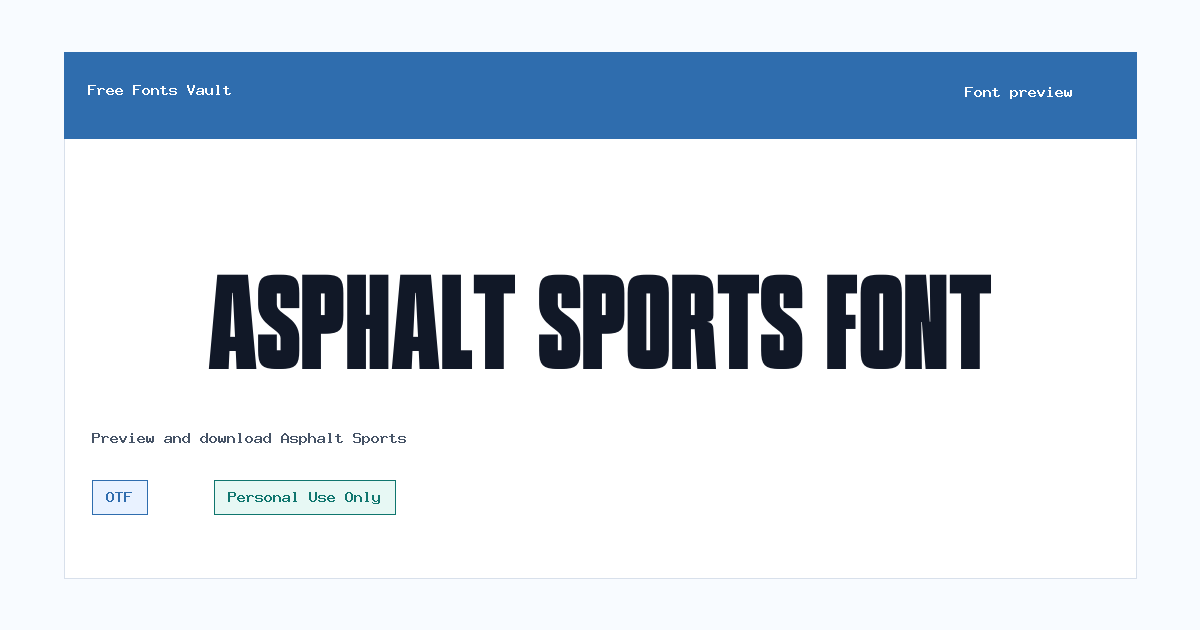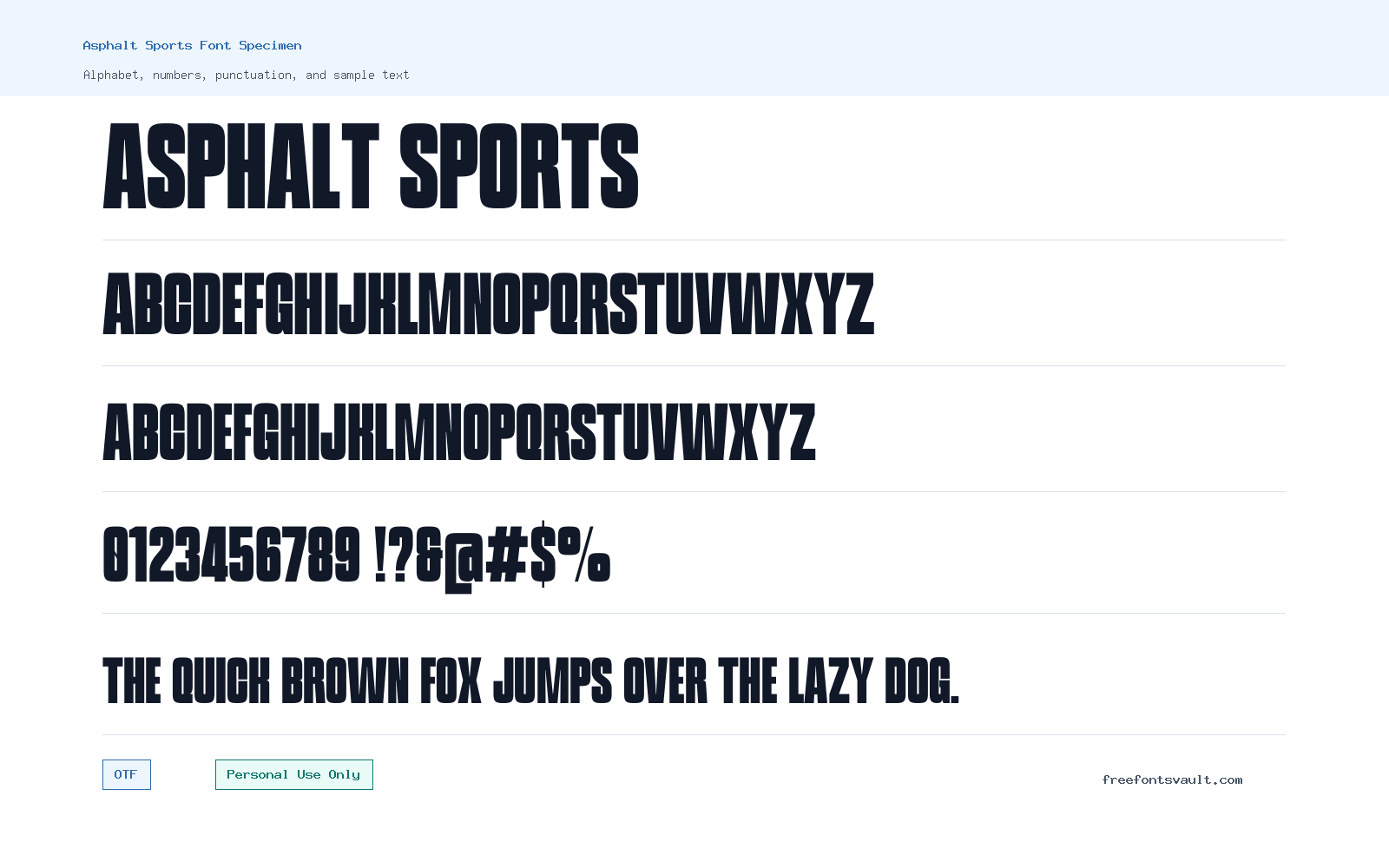
Asphalt Sports
Asphalt Sports Font
Asphalt Sports is a bold display font with a strong athletic feel, made for short text that needs weight and impact. It is best tested in headlines, team-style names, poster titles, and logo mockups rather than long paragraphs.
About Asphalt Sports Font
Asphalt Sports has the kind of sturdy, compact look visitors often want for sports graphics and energetic branding tests. The regular OTF file gives you a single straightforward style to preview, so the best way to judge it is by typing the exact words you plan to use. Try team names, jersey numbers, event titles, gym labels, gaming names, or short merchandise text. Because the family listed here has one regular style, you should not expect separate italic, outline, or extra weight files unless you add your own effects in design software.
Use the preview box to check spacing, letter shapes, and readability before downloading. Display fonts can look excellent at large sizes but become tight or heavy when used too small. Test all-caps words, mixed-case names, numbers, and any punctuation you need. If your design uses several words, add more space between lines and avoid crowding the letters with heavy shadows or outlines. For pairing, keep the supporting font simple: a clean sans serif works well for body copy, dates, addresses, or small labels while Asphalt Sports handles the main title.
• Bold sports-style display look for short, high-impact wording.
• Sports posters, team name previews, fitness graphics, event titles, and jersey-style mockups.
• Logo concepts, gaming banners, social graphics, stickers, and merchandise drafts for personal projects.
What kinds of designs suit Asphalt Sports?
It suits short, bold text such as sports titles, team-style names, poster headings, gym graphics, gaming banners, and logo drafts.
Can I use Asphalt Sports for body text?
It is better for display use. For paragraphs, descriptions, or small details, pair it with a simpler font that stays readable at smaller sizes.